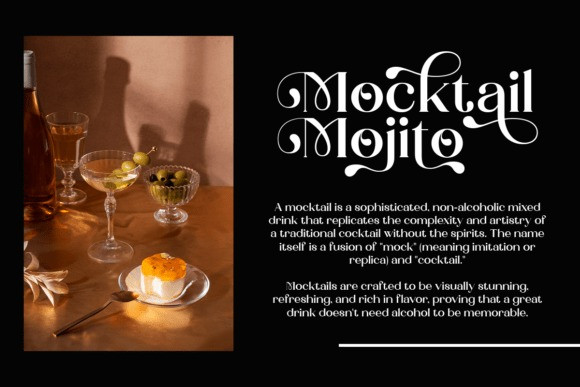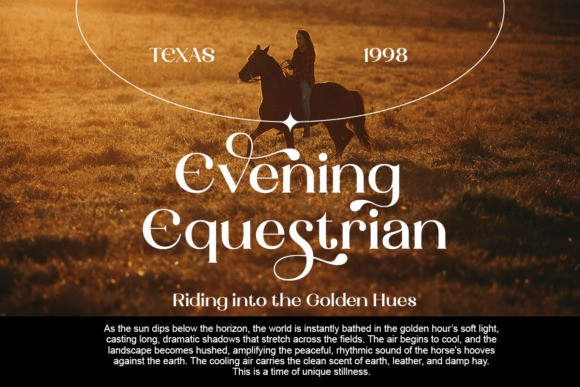
Landmark Models Font
Landmark Models Font is a striking modern serif font with a playful twist.Featuring high-contrast strokes and whimsical, flowing swashes, this typeface brings a sense of flair and sophistication to any design. Ideal for fashion editorials, luxury branding, logos, magazine titles, and creative projects, Landmark Models combines elegance with personality—making your typography truly unforgettable.
The Landmark Models serif font is also PUA-encoded, ensuring effortless access to all glyphs, swashes, and alternate characters to help you customize your creations with ease.